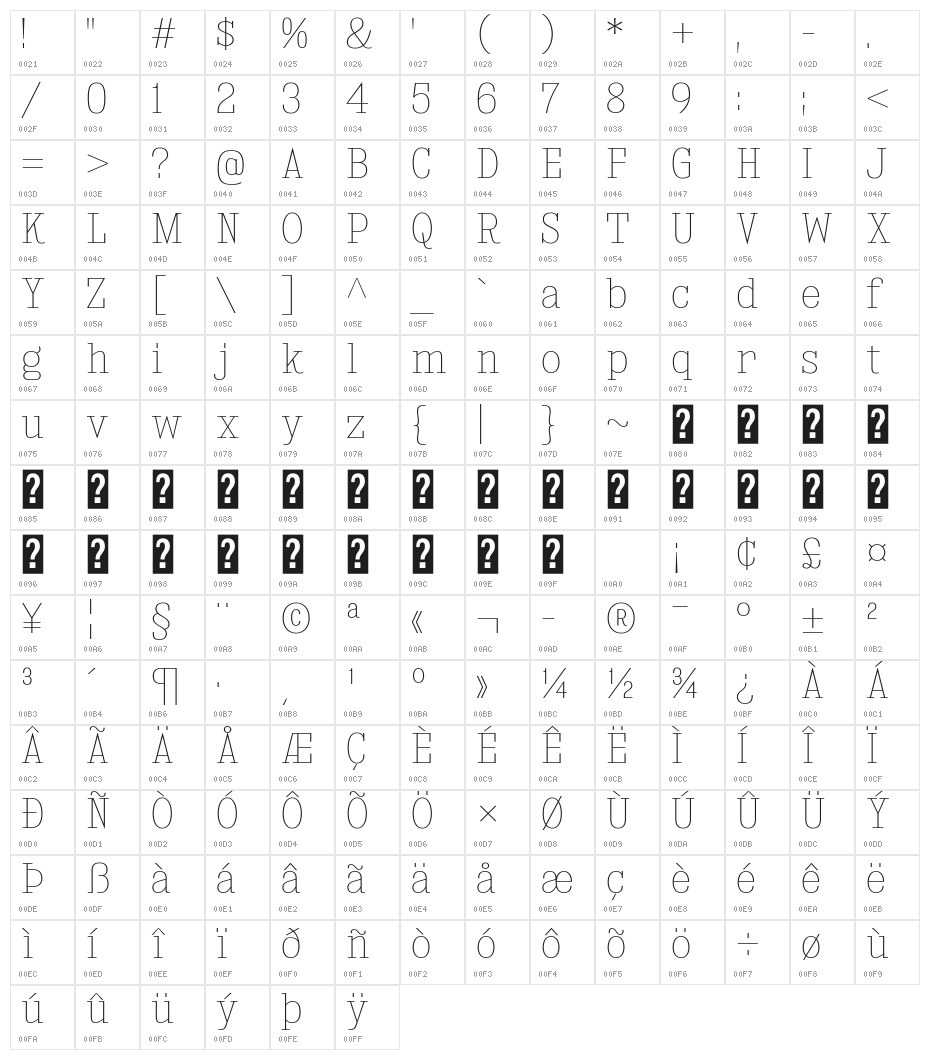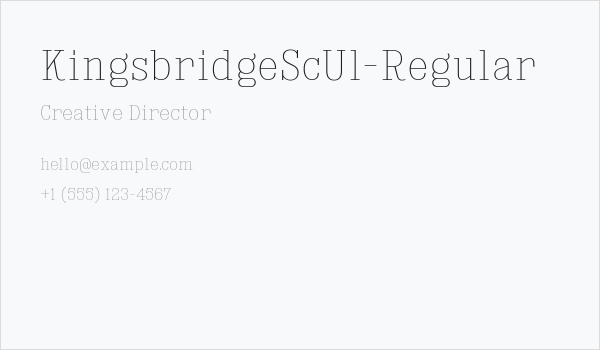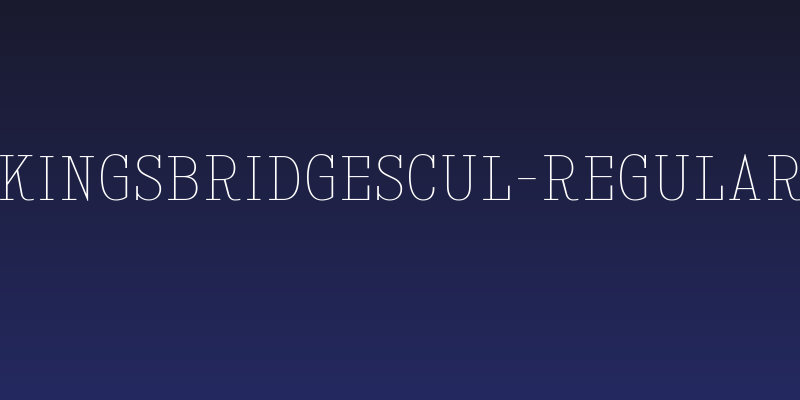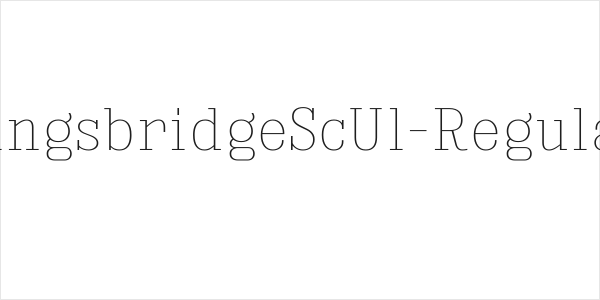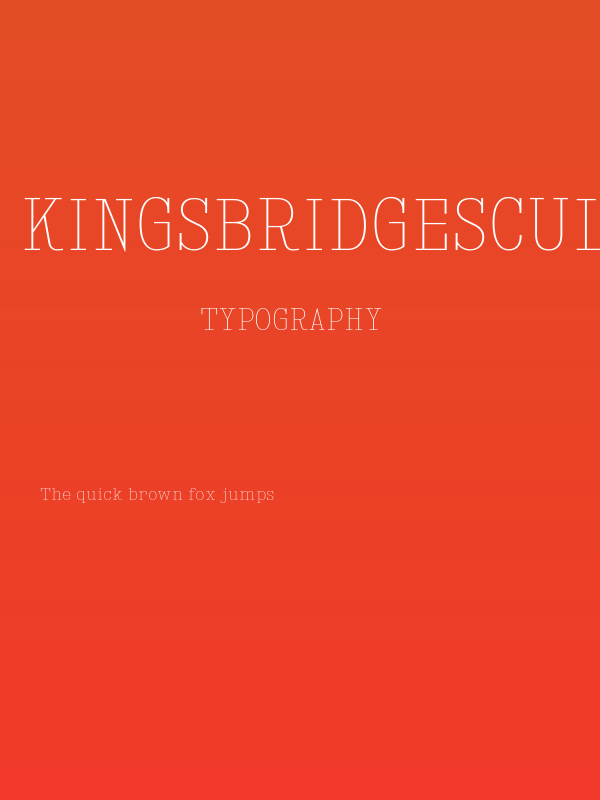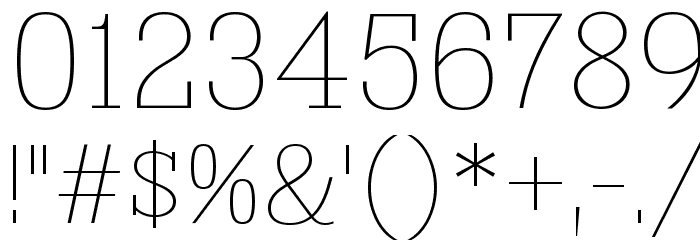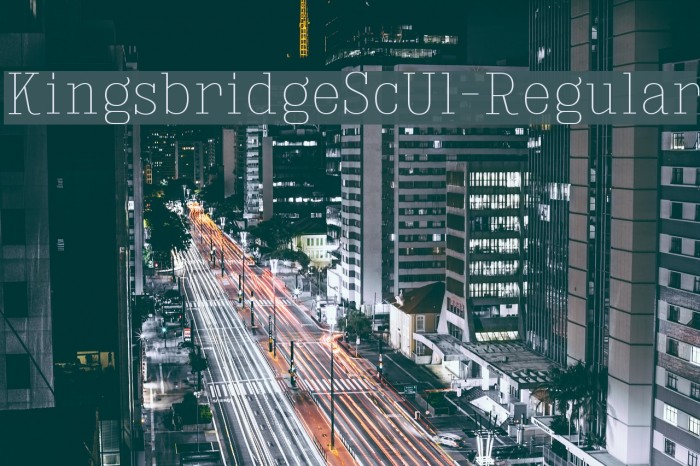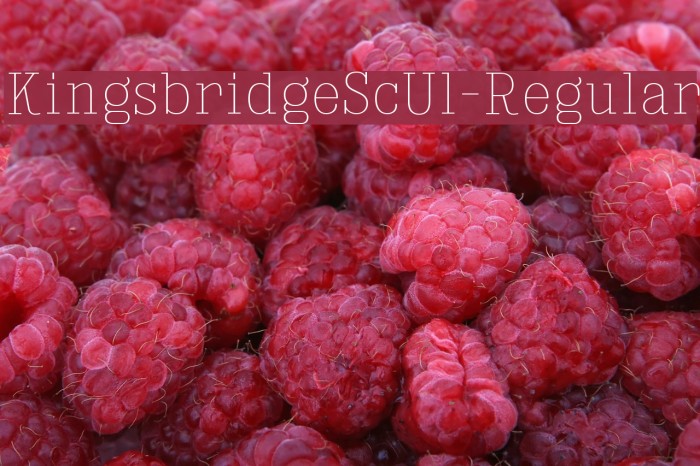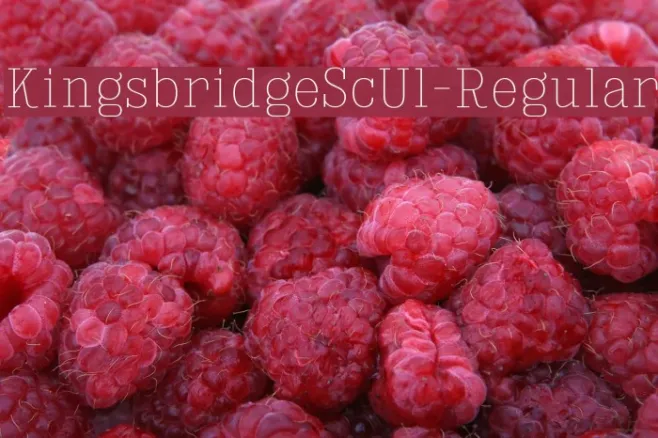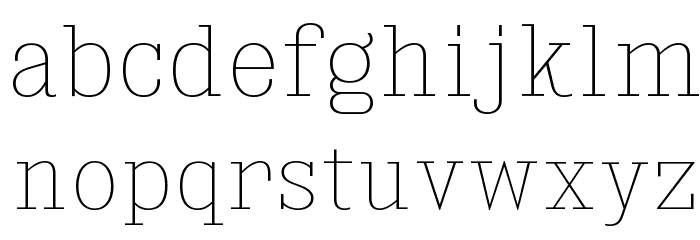
KingsbridgeScUl-Regular Font
KingsbridgeScUl-Regular Description
This font features a clean and elegant design with thin, uniform strokes that create a sense of sophistication and modernity. The uppercase letters are tall and slightly narrow, giving them a refined appearance, while the lowercase letters maintain a consistent height and width, ensuring readability. The numerals are well-proportioned, aligning seamlessly with the overall aesthetic. Special characters are distinct and harmonize with the font's sleek style. The font's minimalistic approach makes it versatile for various design applications, from digital to print media.
| Proposed Projects | Ideal for branding, editorial design, websites, and corporate materials. |